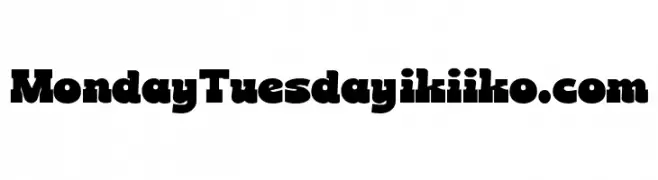
A playful, bold font with a whimsical, hand-drawn style.
A playful, bold, and hand-drawn font with a whimsical style.
A modern, geometric font with clean lines and rounded edges.
A casual, handwritten font with fluid, organic strokes and a playful appearance.
A tall, narrow font with a playful and modern style.
A modern serif font with artistic flair and balanced elegance.
A playful, snow-themed decorative font with bold, chunky characters.
A bold, handwritten script font with a playful and dynamic style.
A playful, handwritten font with rounded edges and a casual, friendly style.
A playful, hand-drawn font with rounded, whimsical characters.
A playful, bold font with whimsical, hand-drawn letterforms.
A playful, hand-drawn font with bold, irregular strokes and a whimsical style.
A bold, retro-inspired font with rounded, playful letterforms.
A playful, casual handwritten font with flowing, consistent strokes.
A whimsical script font with decorative swirls and loops, perfect for creative projects.
A playful and elegant cursive script font with decorative swashes.
A casual, handwritten cursive font with a flowing, elegant style.
A playful, rounded font with a hand-drawn, whimsical style.
A playful, handwritten font with a casual and informal style.
A playful, casual handwritten font with smooth, rounded strokes.
A playful, hand-drawn font with tall, narrow letters and a whimsical style.
A bold, expressive handwritten font with a dynamic and lively style.
A cursive, handwritten-style font with smooth curves and a personal touch.
A playful, handwritten font with smooth, rounded edges and a friendly appearance.
An elegant, cursive font with flowing, handwritten style.
A playful handwritten font with rounded, smooth strokes.
A bold, dynamic font with flowing strokes and a lively, expressive style.
A dynamic, cursive font with expressive, fluid strokes.
A playful and elegant handwritten script font with smooth, flowing strokes.
A dynamic italic script font with expressive brush strokes and a modern flair.
A lively, flowing script font with a modern, handwritten style.
A bold, expressive handwritten font with dynamic strokes and a lively appearance.